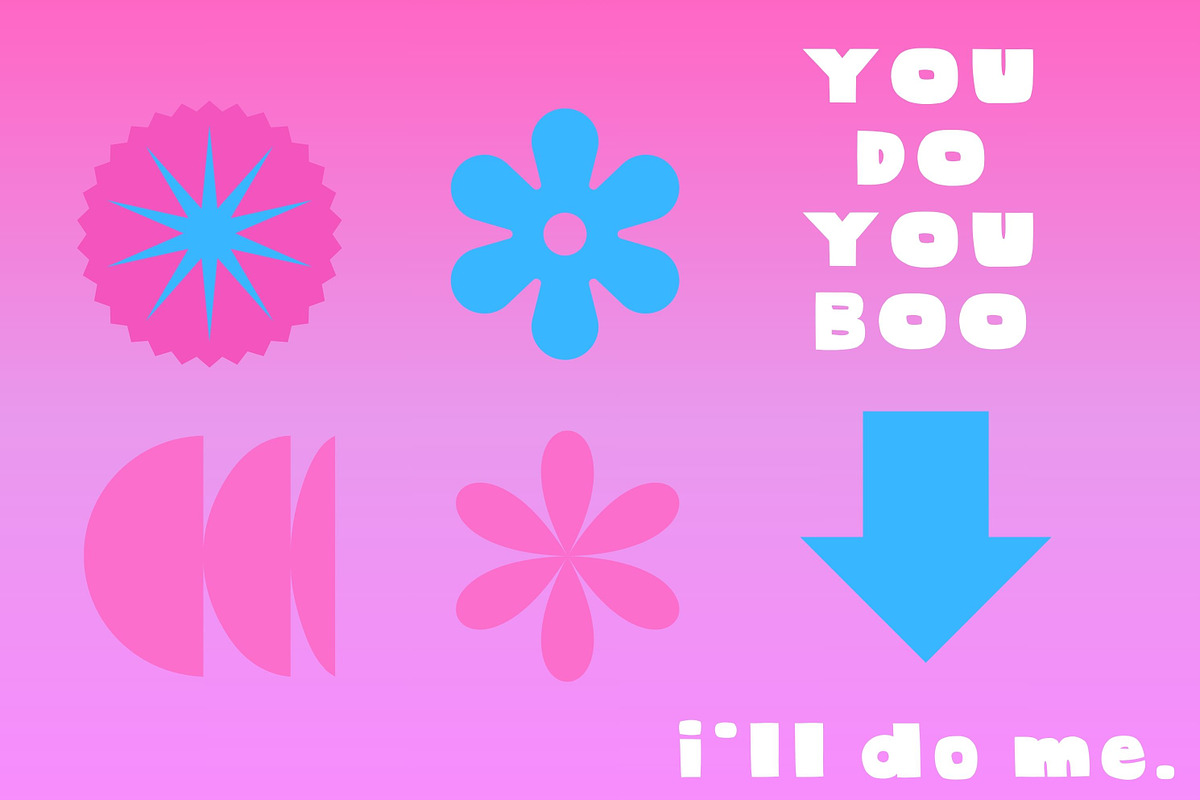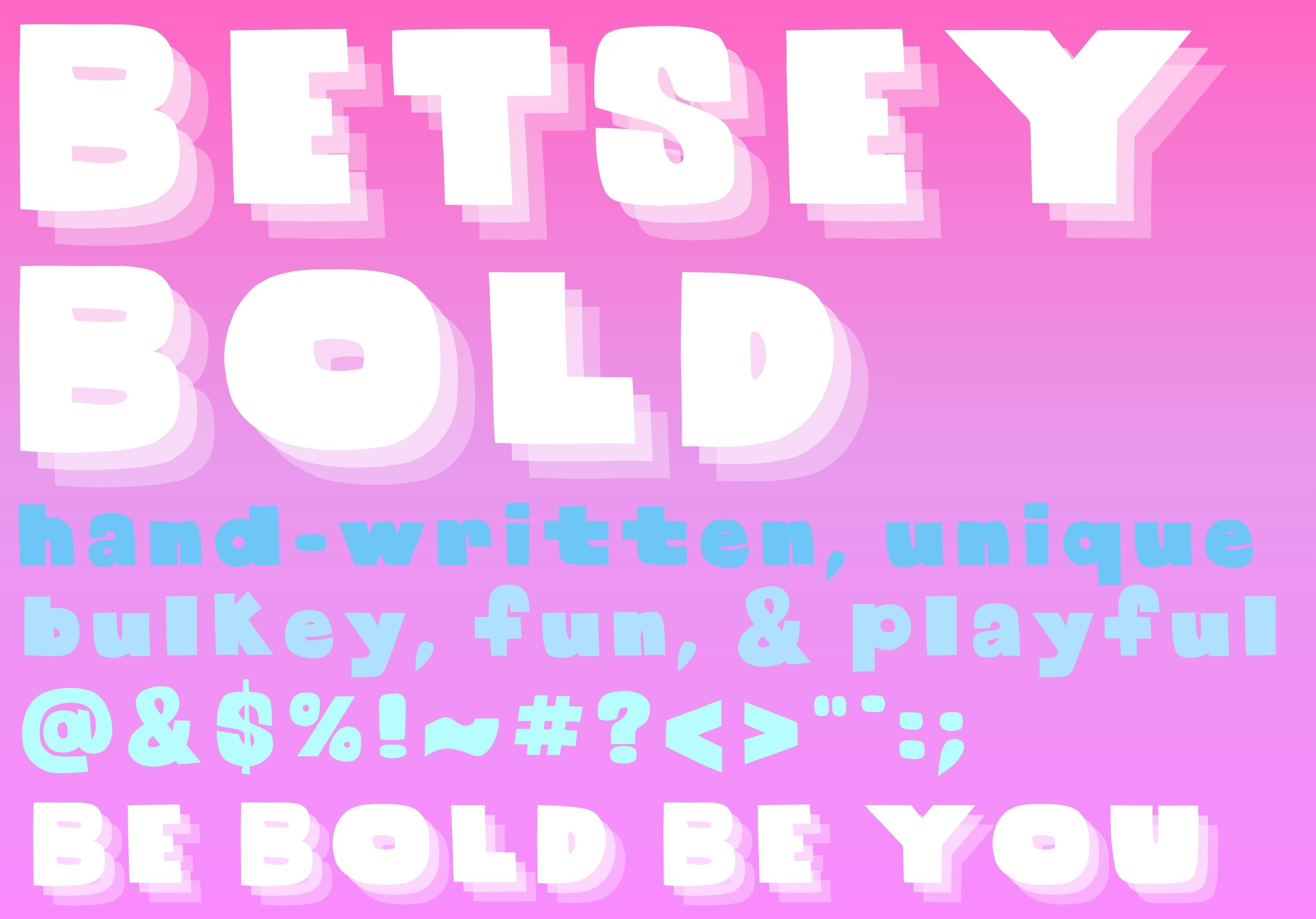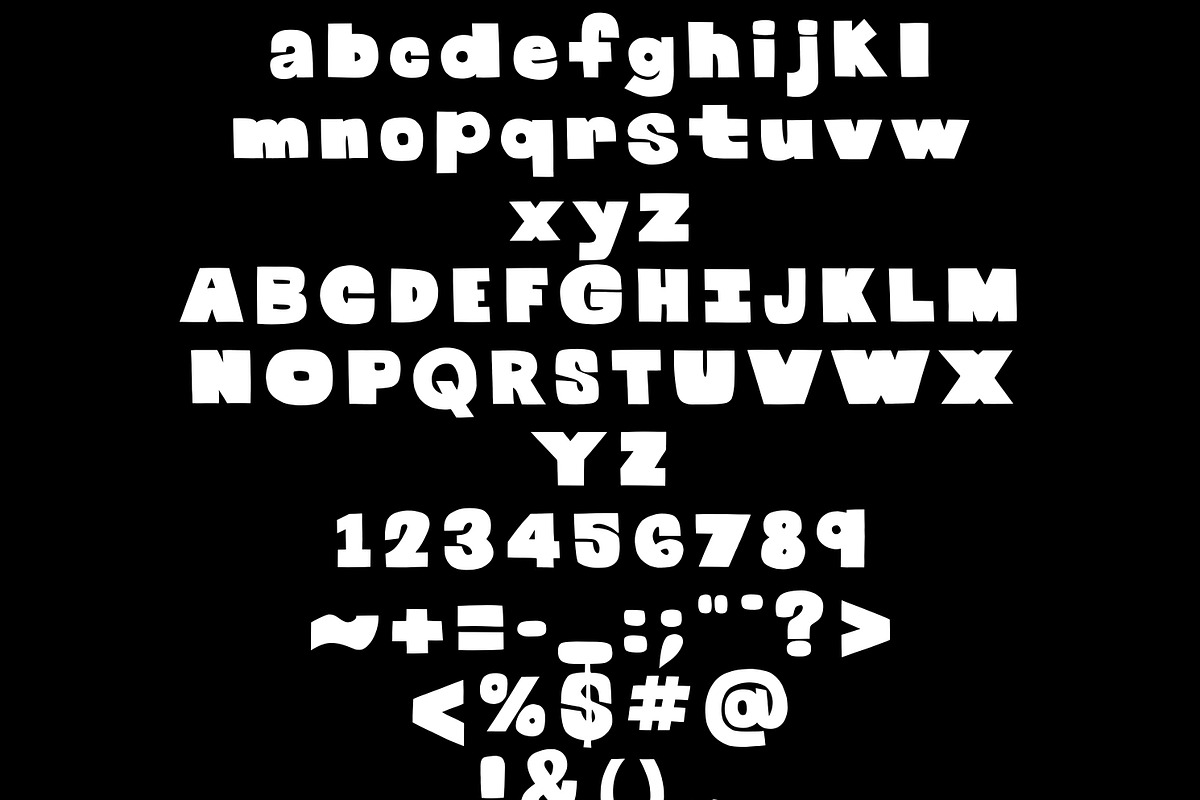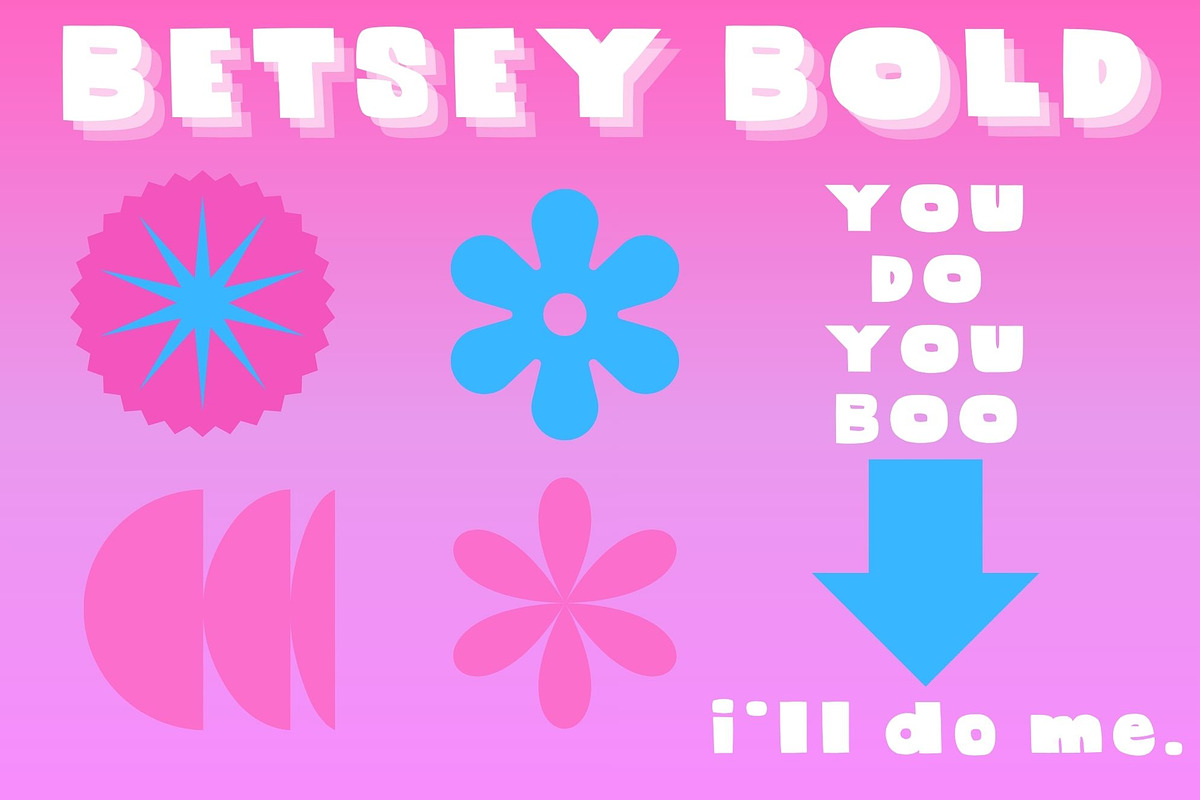
Betsey Bold a Hand-written font
A bulky , fun font excellent for product design or advertising.
- unique and one of a kind
- contains the full alphabet symbols, and numbers